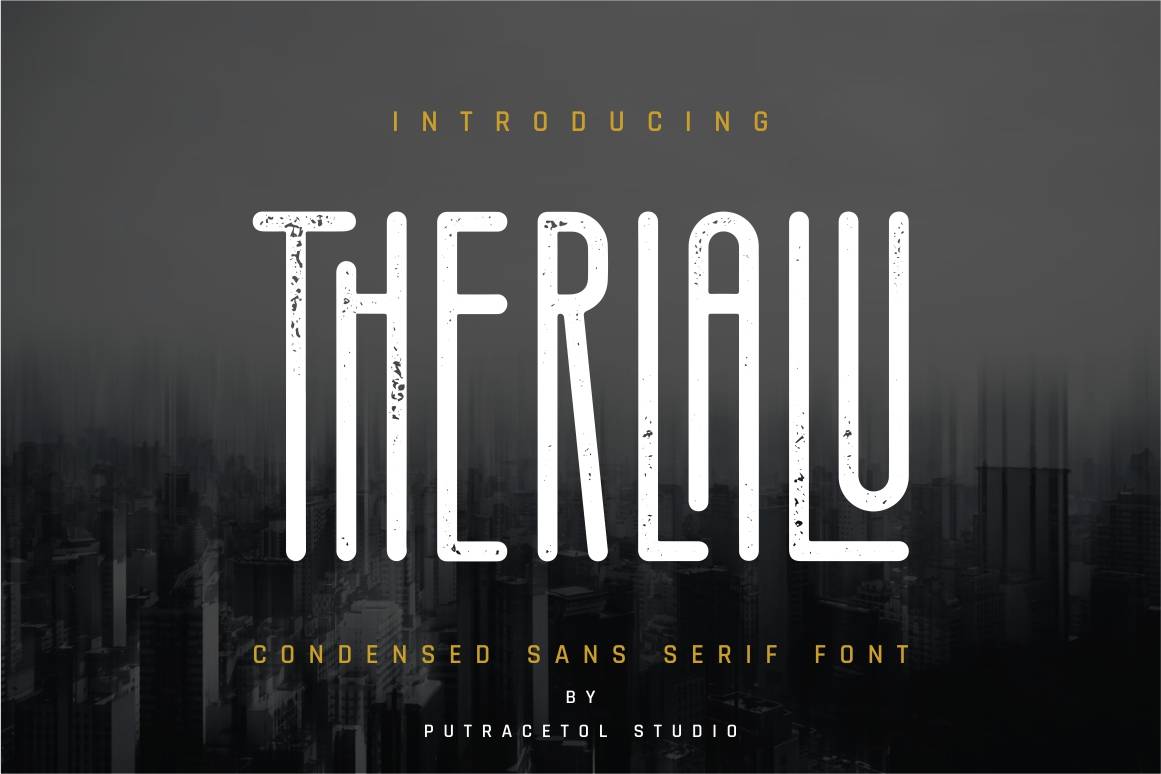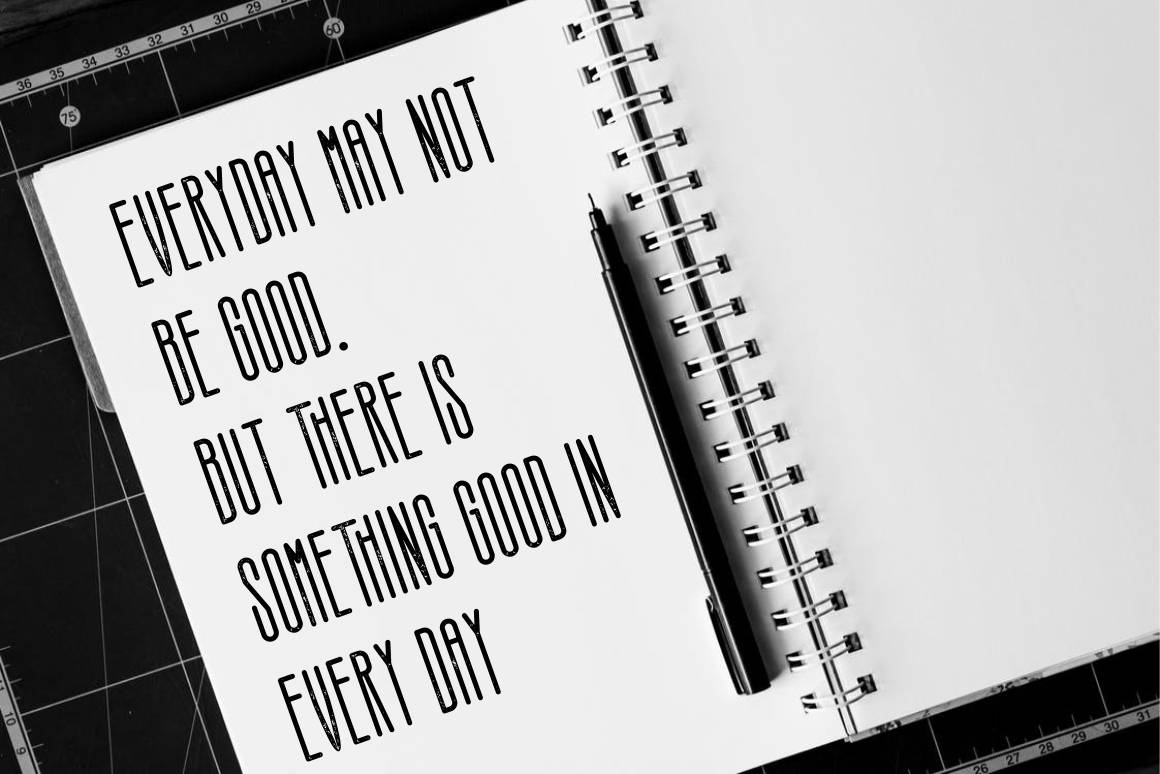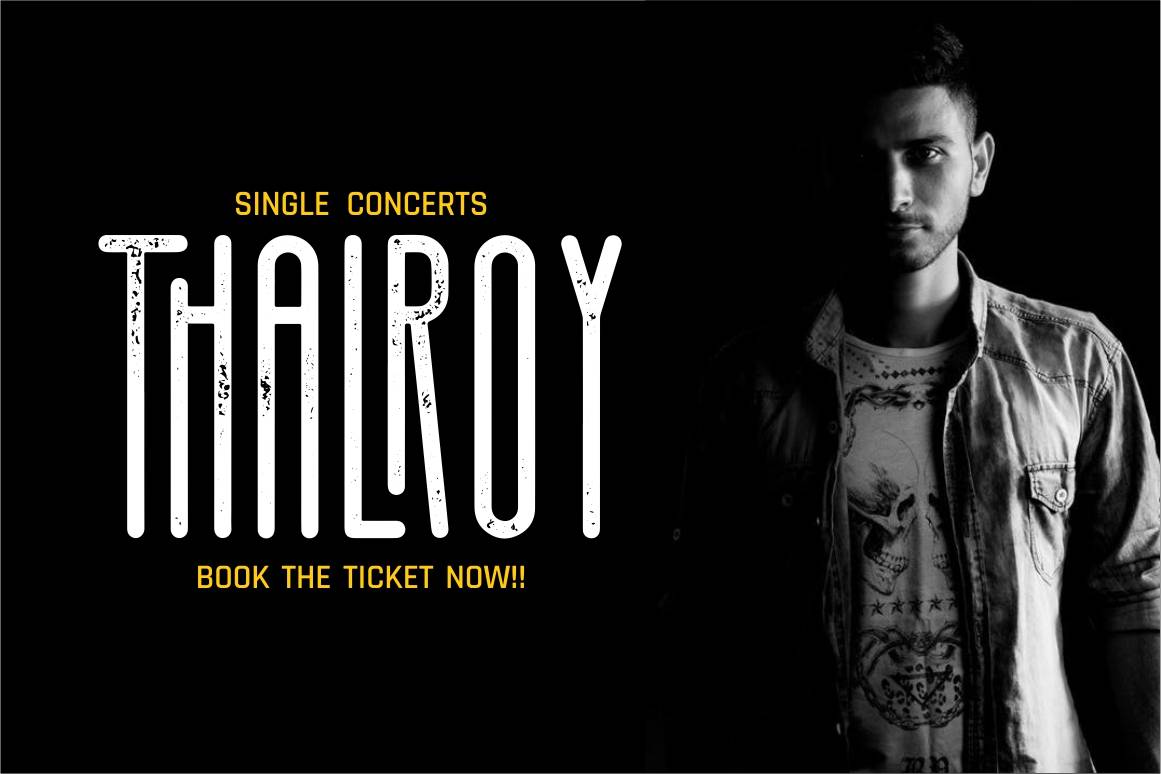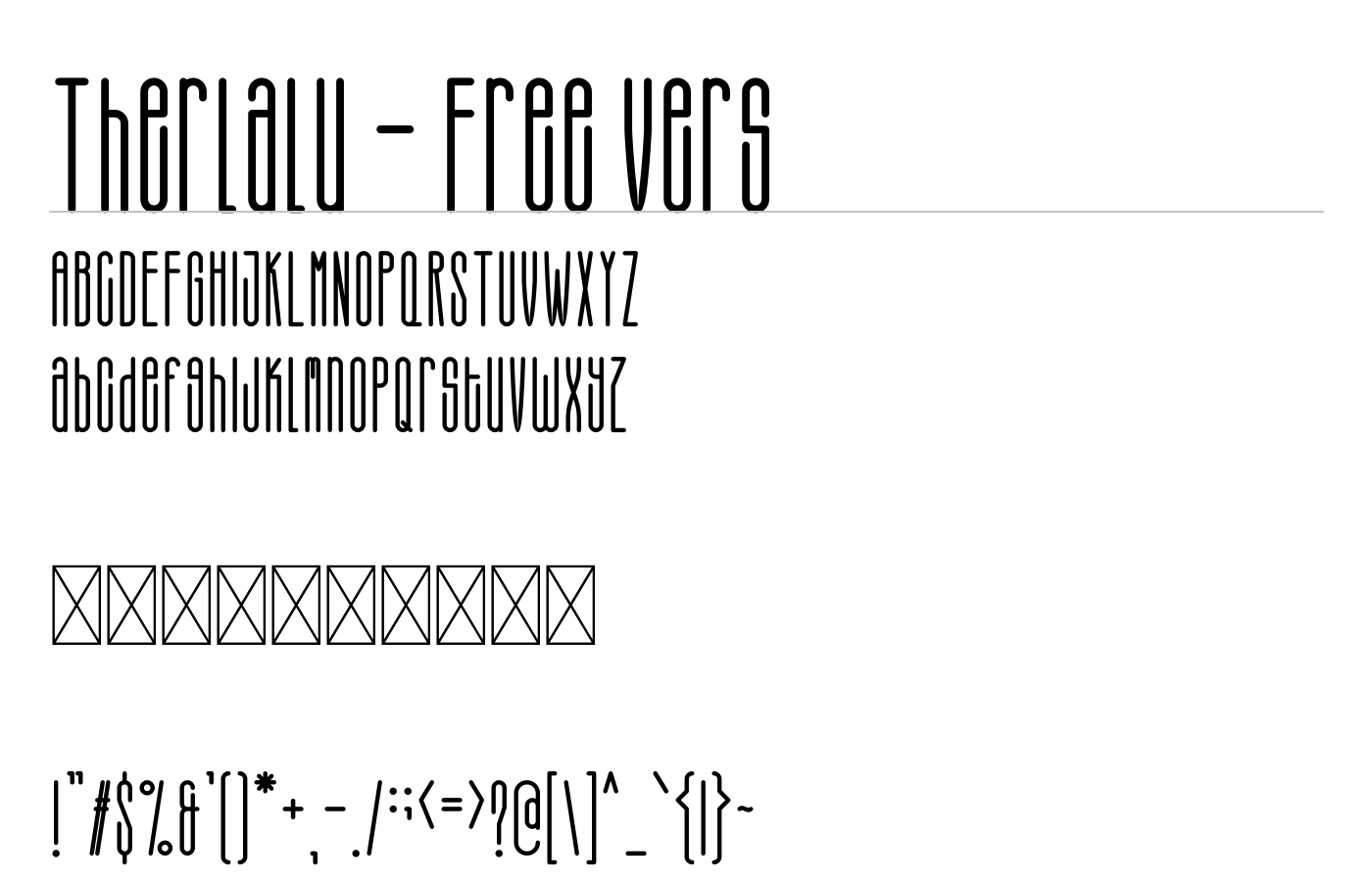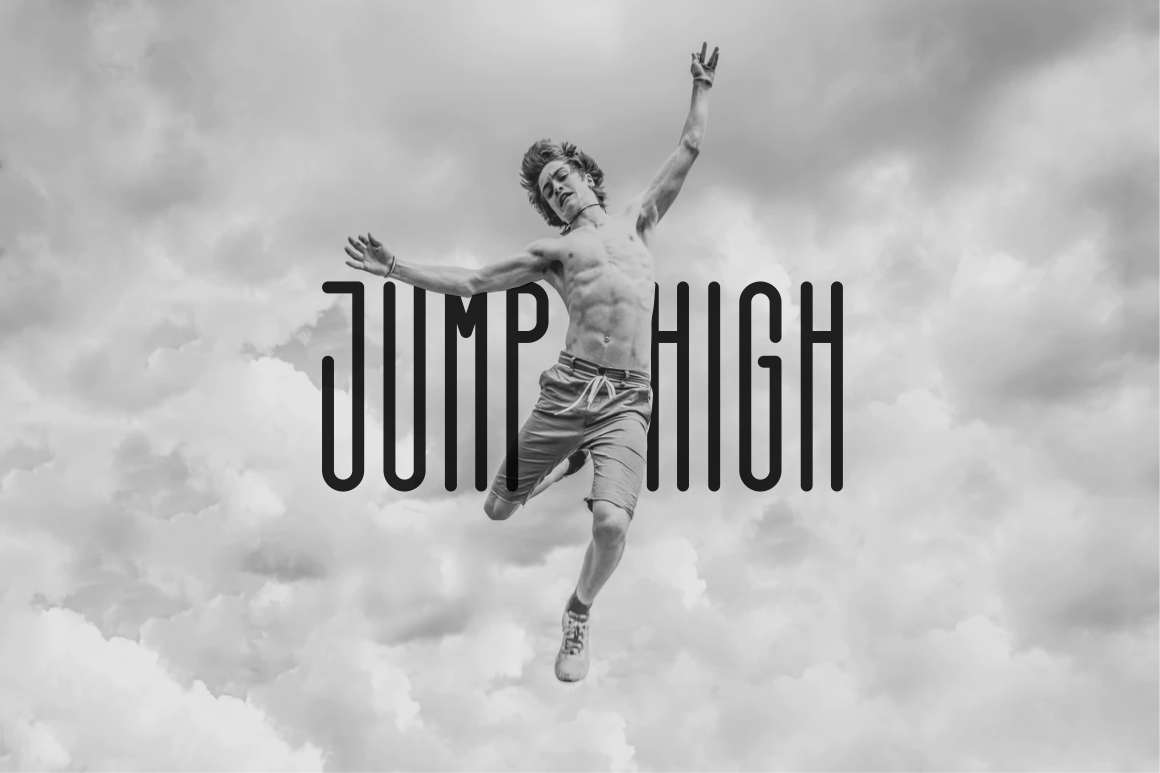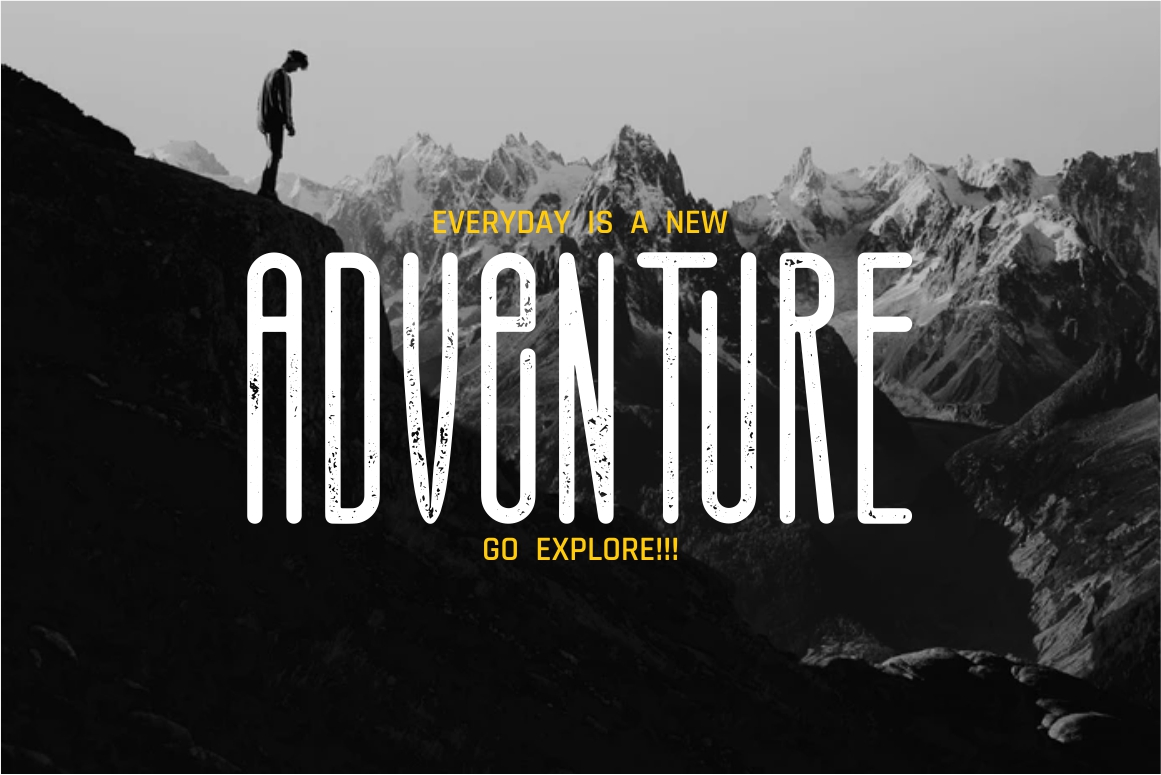
Therlalu is a slender, tall sans serif font with a modern and minimalist vibe, characterized by its narrow letterforms and clean, uniform strokes. Its high x-height and consistent stroke weight make it highly readable in display sizes, while its unique, slightly condensed shapes lend a contemporary and stylish feel perfect for headlines, logos, and creative branding that seeks a sleek, elegant edge.
Therlalu
About Therlalu